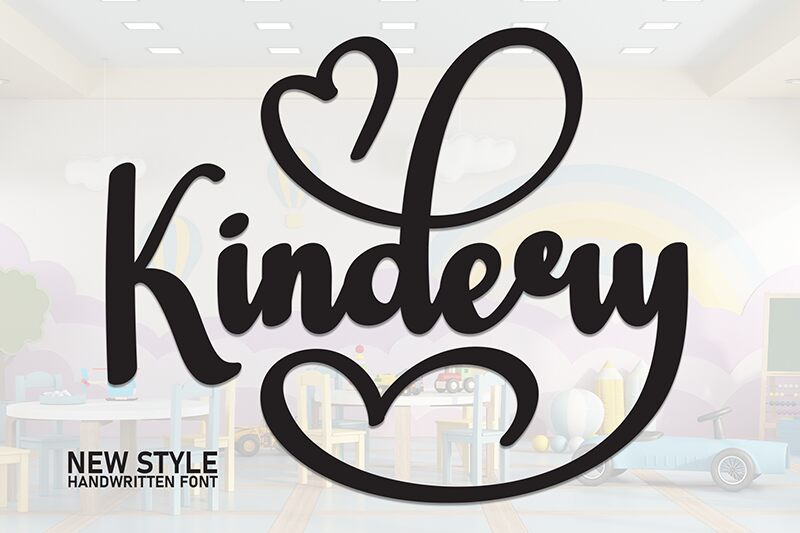
Kindery
Kindery font is a free brush script by Scratchones with an elegant design dedicated to artists and designers with creative visions. Fluid and expressive, the highly-curved typeface combines a modern feel and casual vibe in every character. Its artistic flair enables it to become the perfect font for multiple professional projects that require an elegant presentation.
Use Kindery for ads, brochures, flyers, magazines, packaging designs, and shop signs. Showcase its letters over branding projects including logotypes or present your dashing personalities via social media platforms profiles and covers as the font can be used for Instagram stories or Facebook pages.